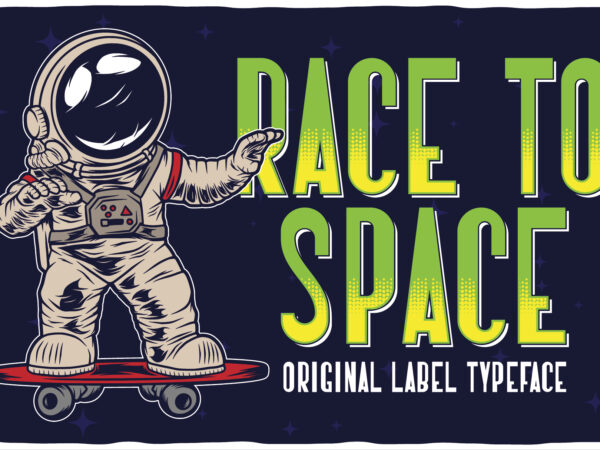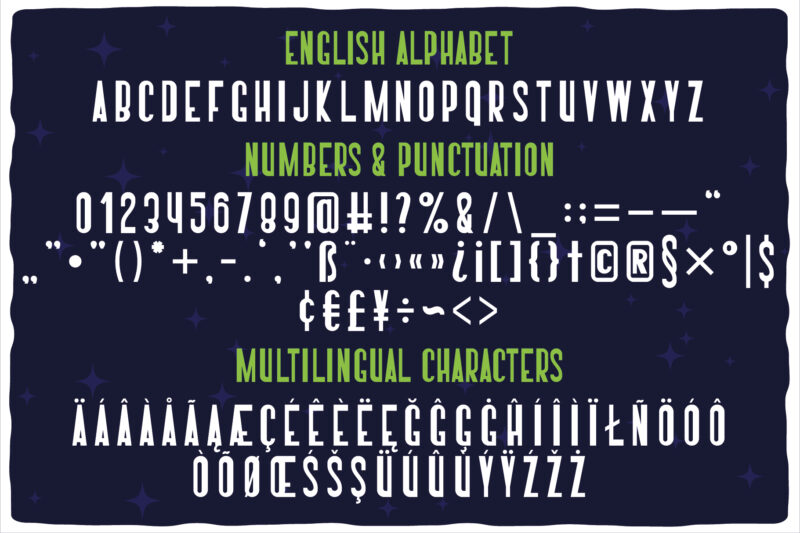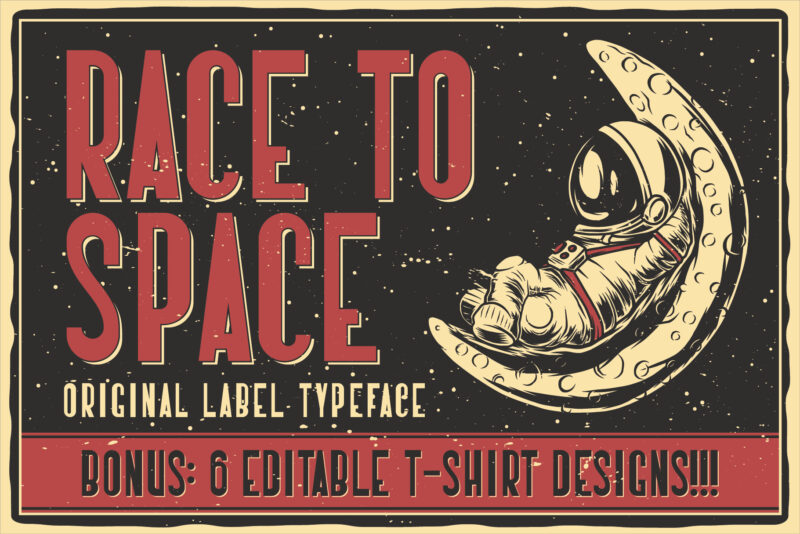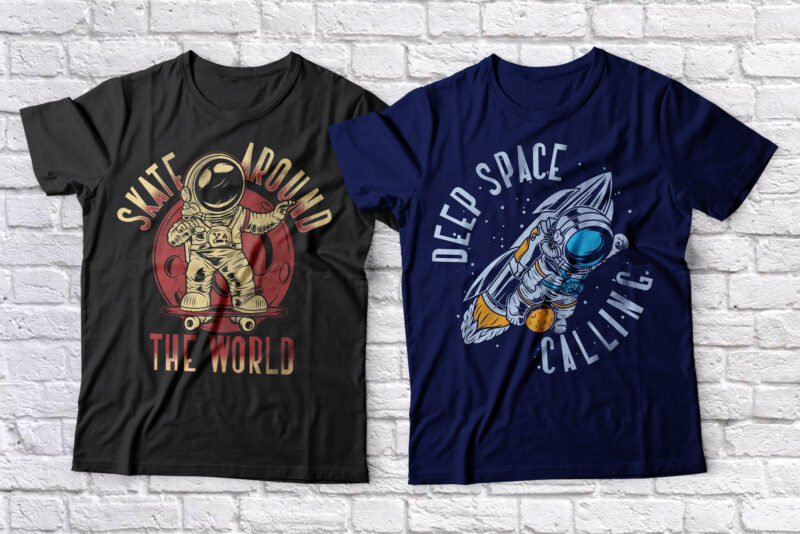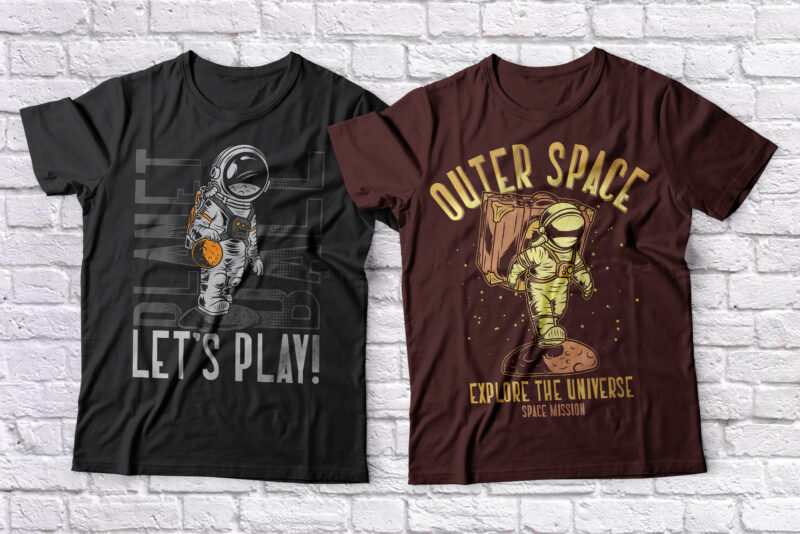
Race To Space label font with 6 editable t-shirt designs
Introducing a vintage look label font named Race To Space. All available characters you can see at the screenshot. This font have 7 styles - Regular, Shadow, Texture, Shadow FX, Texture FX, Full and Aged. This funny style font will good viewed on any retro design like poster, t-shirt, label, logo etc.
• A lot of additional characters and multilingual support